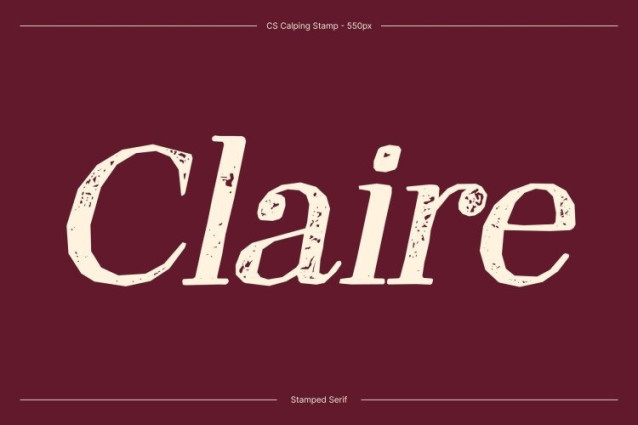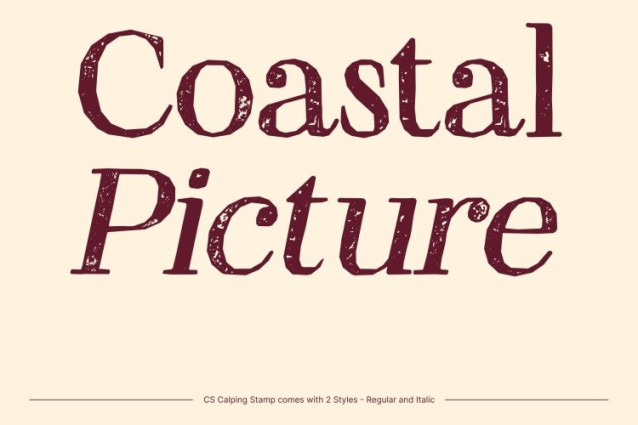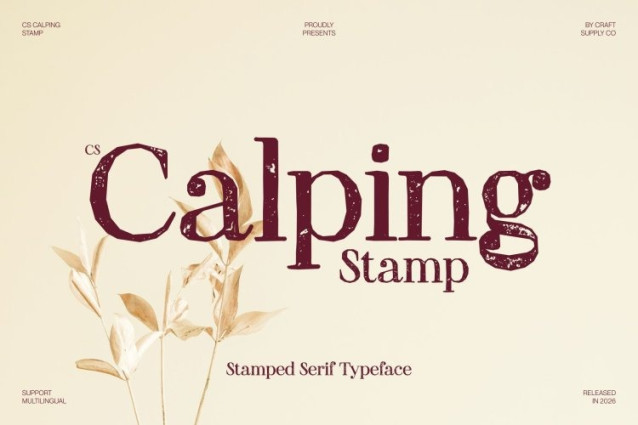
CS Calping Stamp Font
CS Calping Stamp Font is a Didone serif font that combines classic elegance with a distinctive vintage stamp effect. Known for its dramatic contrast between thick and thin strokes and its sharp, refined serifs, the font maintains its sophisticated structure while gaining a textured, handcrafted appearance. Subtle distressed details and ink-like imperfections give the letterforms a nostalgic charm reminiscent of traditional printing techniques.
High-Contrast Beauty with Textured Depth
The hallmark of this font lies in its striking stroke contrast and graceful proportions. The stamp effect introduces delicate irregularities and worn textures that soften the precision of the Didone structure without diminishing its elegance. This fusion creates a visually rich typeface that feels both luxurious and artistically expressive.
Luxurious and Formal with a Vintage Touch
Perfect for projects that demand sophistication and character, this font shines in wedding invitations, fashion editorials, luxury branding, and high-end packaging. Its elegant letterforms convey refinement and prestige, while the vintage texture adds warmth and authenticity to the overall design.
Distinguished Style for Upscale Design
Blending the grandeur of traditional Didone typography with the charm of a stamped aesthetic, this font offers a unique typographic presence. It is an ideal choice for designers seeking a font that communicates timeless class, artistic depth, and memorable visual impact in both print and digital applications.